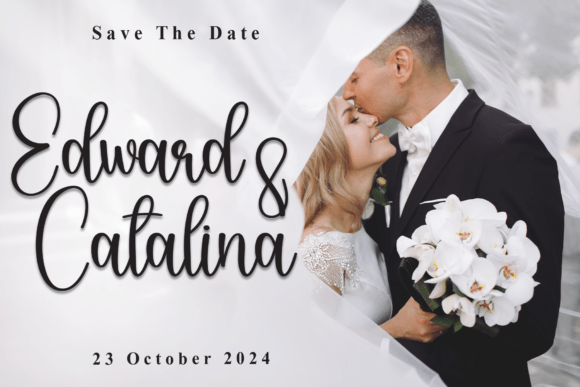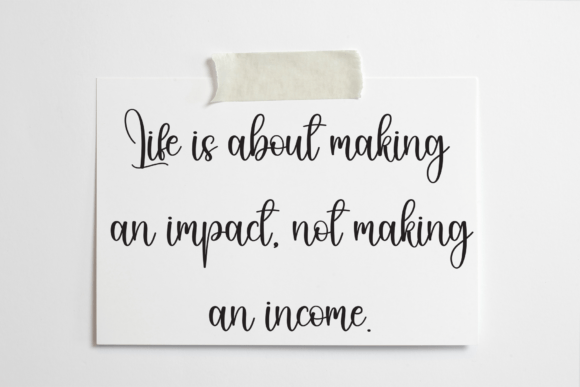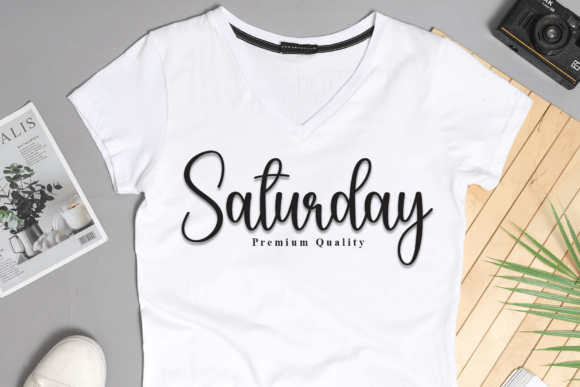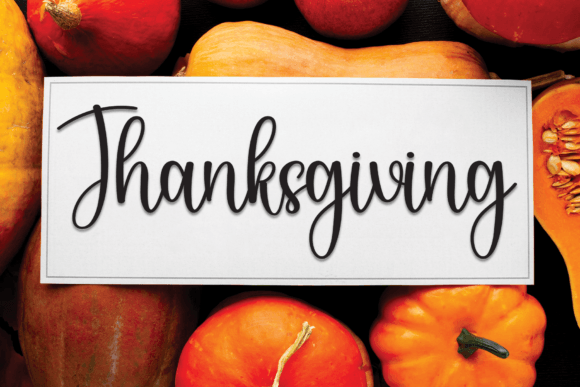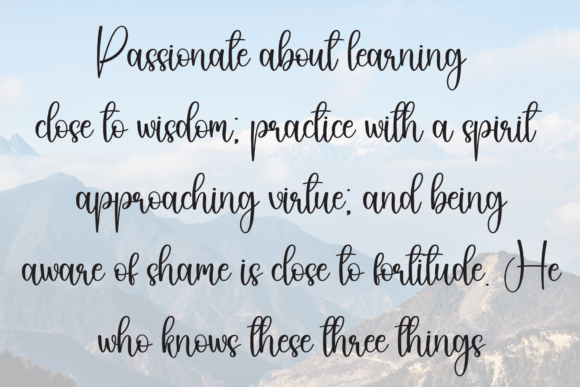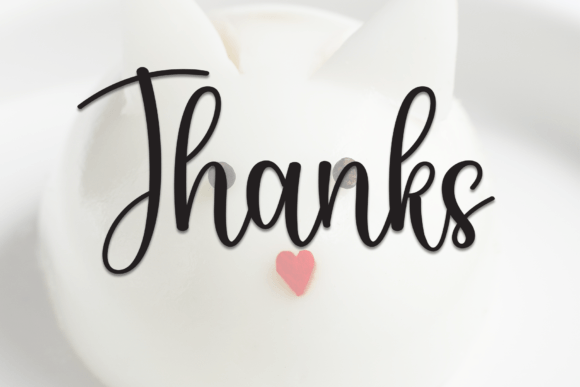
The Sweet Allure of Candy Kitten Font
There’s nothing quite like the feeling of scribbling down a love letter to your favorite childhood sweetheart, or jotting down a heartfelt message to a dear friend. It’s the handwritten touch that speaks directly to the soul, and that’s exactly what the Candy Kitten Font is designed to evoke.
With its elegant script and whimsical charm, the Candy Kitten Font is the perfect addition to any designer’s toolkit. Whether you’re crafting wedding invitations, designing greeting cards, or creating logos for a new business, this font adds a touch of sophistication and personality that’s hard to resist.
For designers, the Candy Kitten Font is a valuable asset that can elevate even the most mundane projects into something truly special. Its versatility and charm make it a go-to choice for a wide range of applications, from business cards to quotes and more.
Candy Kitten Font Key Features
- Font Family: Candy Kitten, a whimsical and playful font designed to evoke a sense of sweetness and fun.
- Unique Characteristics: The Candy Kitten font features a distinctive cursive script with rounded edges and a touch of whimsy, making it perfect for creating eye-catching headlines and titles.
Candy Kitten Font Review
Overall, I think the Candy Kitten font is a cute and playful addition to any design project. It’s perfect for creating a whimsical atmosphere, especially in designs related to children, desserts, or pets. ✨ The font’s irregularities and rounded edges give it a hand-drawn feel, which can be very endearing to some users.
One of the best things about this font is its versatility. It can be used in various contexts, from headings to body text, and even as a decorative element. The font also comes in multiple weights, which is a plus. ✨ Another advantage is that the font is relatively easy to read, even at smaller font sizes.
While the Candy Kitten font has its charms, there are a few limitations to consider:
- ⚠️ The font may not be suitable for formal or professional projects, as it can come across as too childish or unprofessional.
- ⚠️ The font’s irregularities can make it difficult to read in certain situations, especially at very small font sizes.
- ⚠️ Some users may find the font too cursive or hard to distinguish from other fonts.
Overall, I think the Candy Kitten font is a fun and creative addition to any design project. While it may not be suitable for all types of projects, it’s perfect for those that require a playful and whimsical atmosphere. With its versatility and ease of use, I would definitely recommend this font to designers looking for a unique and eye-catching option.
Getting the Most Out of Candy Kitten Font
For the best results, use Candy Kitten Font for designs that require a playful, whimsical touch. Pair it with bold colors and creative graphics to add visual interest.
Candy Kitten Font is ideal for:
- Food-related designs (e.g., bakery logos, restaurant menus)
- Playful social media posts and advertisements